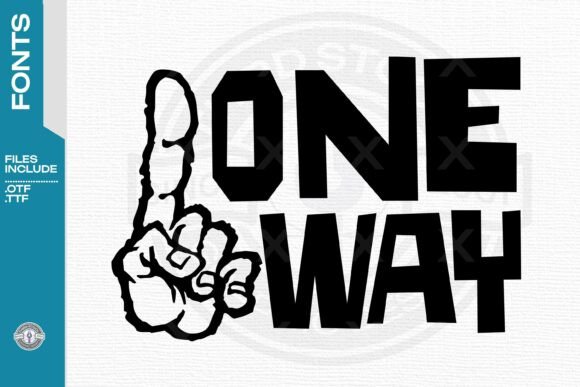
Unlock the Power of Faith-Based Design with Christian Dings Font
Are you a designer, crafty enthusiast, or ministry worker looking for a unique and meaningful way to express your faith? Look no further than the Christian Dings font, a comprehensive collection of sacred symbol dingbats that will elevate your creative ministry to new heights. In this article, we’ll explore the features, benefits, and uses of Christian Dings, and discover how this powerful font can enrich your faith-based designs.
What is Christian Dings Font?
Christian Dings is a dingbat font that features a vast library of sacred iconography, carefully crafted to capture the essence of devotion and timelessness. This font is not just a collection of symbols; it’s a visual language that conveys the message of faith, hope, and love. With Christian Dings, you’ll have access to a wide range of images, including Bibles, crowns of thorns, doves of peace, triumphant crosses, and many more.
Key Features of Christian Dings Font
• Bold Black Silhouettes: Christian Dings features bold, black silhouettes that provide a striking contrast to your design, making it perfect for creating high-impact visuals.
• Rhythmic Hand-Illustrated Details: Each symbol is meticulously hand-illustrated, giving the font a unique, organic feel that adds a touch of warmth and personality to your designs.
• Comprehensive Library: With a vast collection of sacred symbols, you’ll find everything you need to create meaningful and engaging designs that resonate with your audience.
Uses of Christian Dings Font
Christian Dings is an incredibly versatile font that can be used in a variety of contexts, including:
• Independent Church Branding: Create a strong visual identity for your church or ministry with custom logos, brochures, and marketing materials.
• Youth Ministry Graphics: Engage your youth with vibrant and inspiring designs that convey the message of faith and hope.
• Devotional Journal Layouts: Add a touch of elegance and sophistication to your journal designs with Christian Dings’ beautiful symbols.
• Faith-and-Worship Social Media Content: Elevate your social media presence with stunning visuals that inspire and uplift your followers.
Benefits of Using Christian Dings Font
By incorporating Christian Dings into your design workflow, you’ll experience a range of benefits, including:
• Increased Creativity: With a vast library of sacred symbols at your fingertips, you’ll be inspired to create unique and engaging designs that express your faith.
• Improved Communication: Christian Dings provides a visual language that transcends words, allowing you to convey complex messages and emotions in a simple, yet powerful way.
• Enhanced Spiritual Connection: By using a font that is deeply rooted in faith and worship, you’ll be able to create designs that resonate with your audience on a spiritual level.
To get the most out of Christian Dings, here are some tips for designers and crafters:
• Experiment with Color: While the bold black silhouettes of Christian Dings are striking, don’t be afraid to experiment with color to add depth and interest to your designs.
• Mix and Match Symbols: Combine different symbols to create unique and complex designs that tell a story.
• Use Christian Dings in Combination with Other Fonts: Pair Christian Dings with other fonts to create visually appealing contrast and add hierarchy to your designs.
Font Name Christian Dings Font
Author AfterTen
Christian Dings is a powerful font that offers a unique and meaningful way to express your faith through design. With its comprehensive library of sacred symbols, bold black silhouettes, and rhythmic hand-illustrated details, this font is perfect for designers, crafty enthusiasts, and ministry workers looking to elevate their creative ministry. Whether you’re creating independent church branding, youth ministry graphics, devotional journal layouts, or faith-and-worship social media content, Christian Dings is the premier choice for adding depth, meaning, and beauty to your designs.